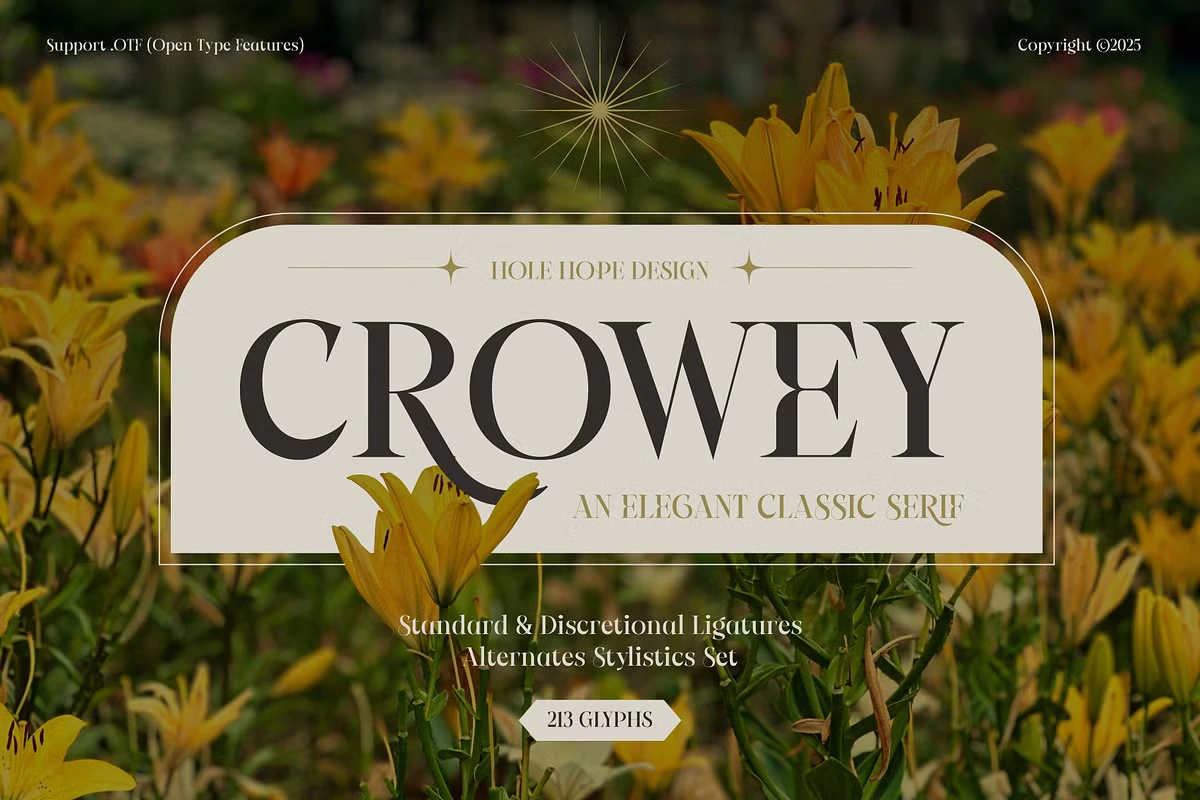
Crowey is a classic beauty that features both the sophistication of a serif font with some measure of charm. Created for the Easter Day, this font embodies the air of sophistication which will be perfect for the season of Easter, spring. It has fine and at the same time strong lines that make it look noble as a genuinely high-class typeface,
which origins are in classic typography but does not look outdated. He gives professionalism giving some extra ornament to every gallery, so that every project turns into bloom.
Crowey Font Serif